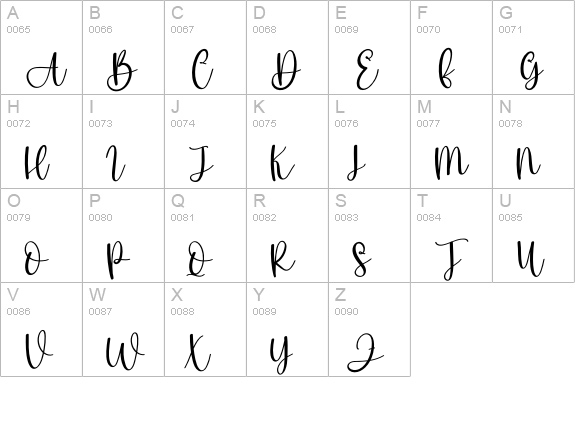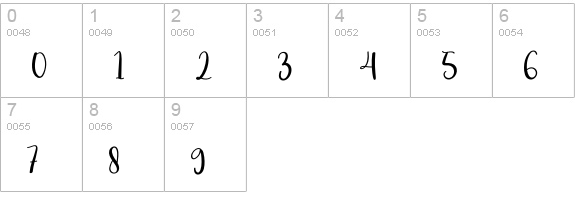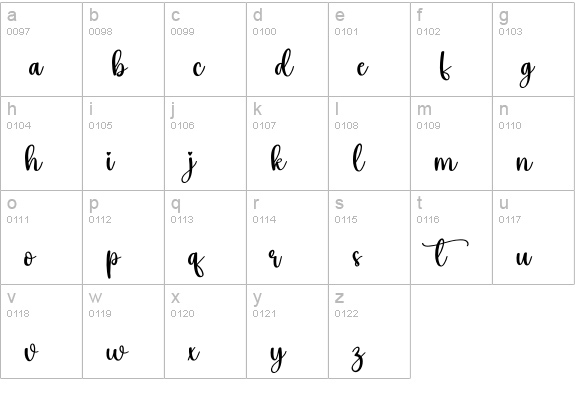
Family Rainbow font is a whimsical and playful typeface that will add a touch of fun to your designs. With its unique and colorful letterforms, this font is perfect for creating eye-catching titles, headlines, and more. Whether you're working on a project for kids or just want to inject some joy into your work, Family Rainbow font is sure to delight. Best of all, this font is available for free download at FontsMarket.com, so you can easily add it to your collection without breaking the bank. Get your hands on Family Rainbow font today and let your creativity shine!